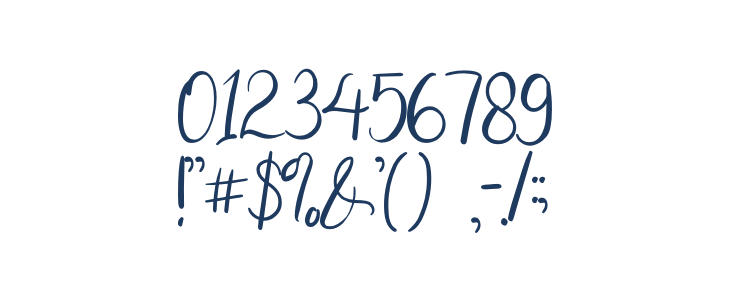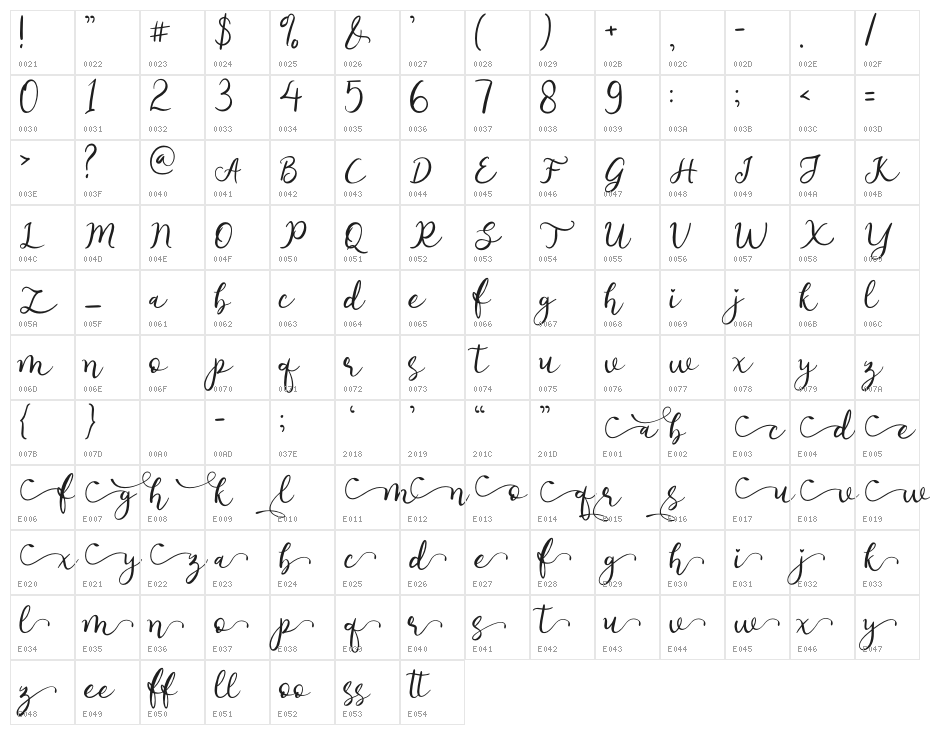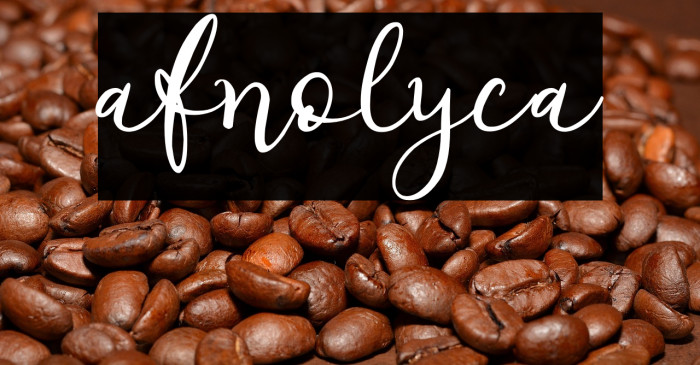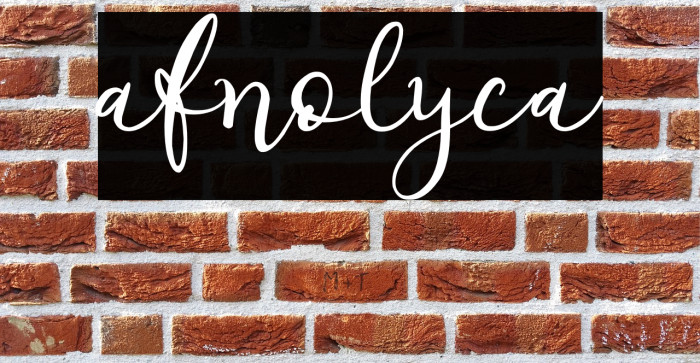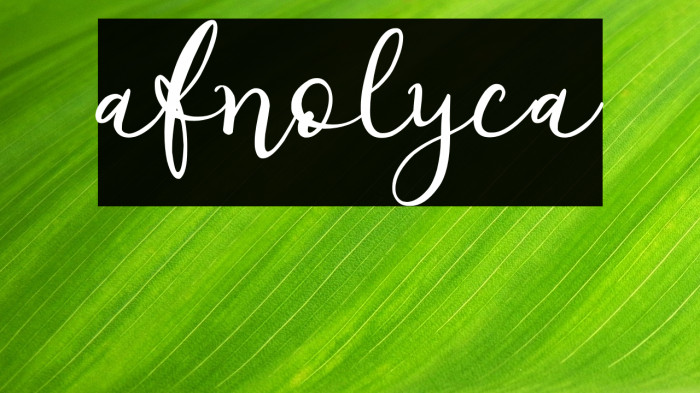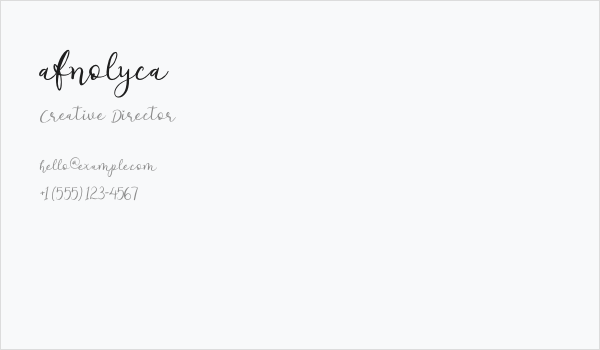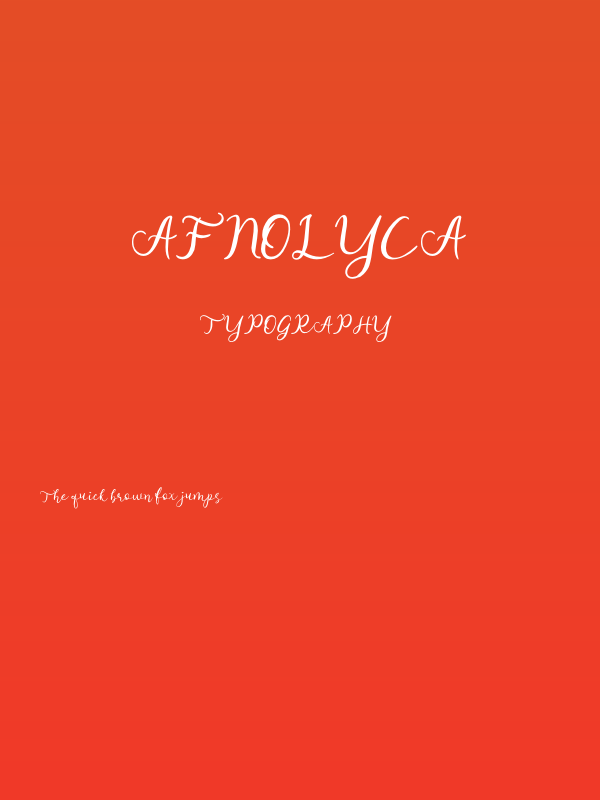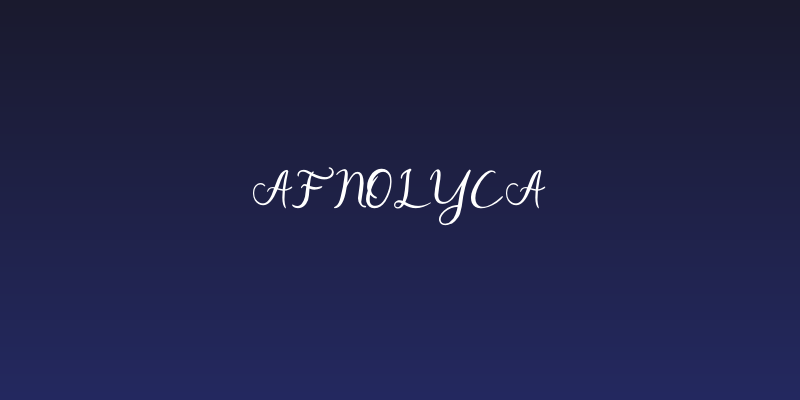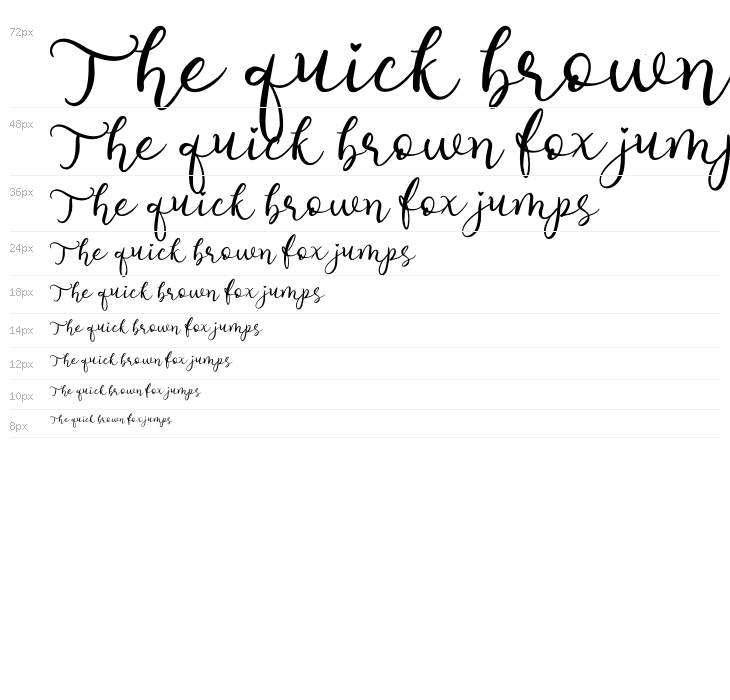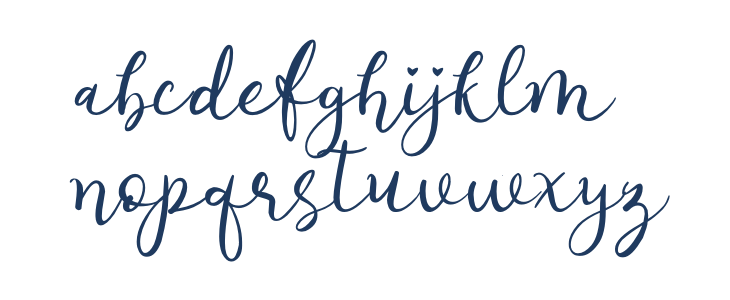
afnolyca Font
afnolyca Description
This font features an elegant, flowing script style that mimics the fluidity of natural handwriting. The uppercase letters are characterized by their graceful curves and loops, while the lowercase letters maintain a consistent, smooth flow. The numerals are distinct yet harmonize well with the overall script style. Special characters are designed with the same attention to detail, ensuring they blend seamlessly with the alphabet. This font exudes a sense of sophistication and charm, making it suitable for projects that require a personal touch.
| Overall Style | Elegant, Handwritten |
| Proposed Projects | Ideal for wedding invitations, greeting cards, branding, and elegant packaging designs. |